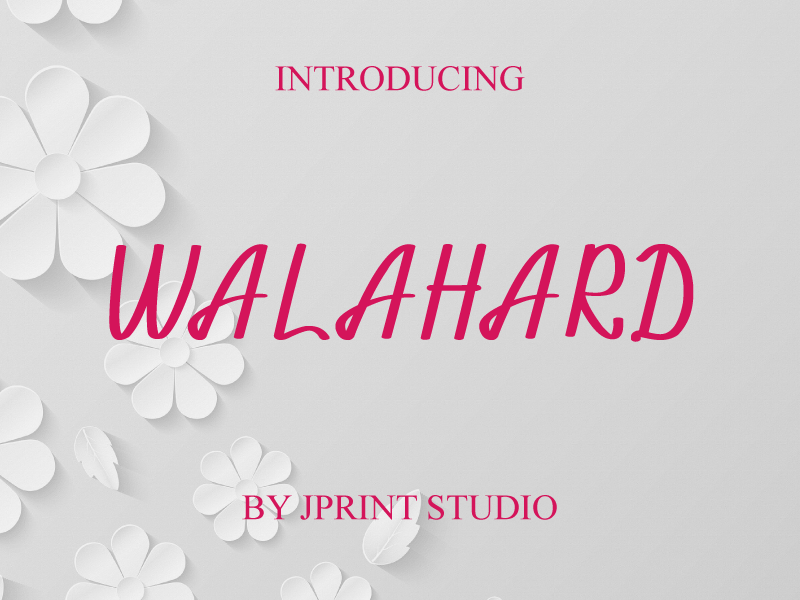
Preview and download Walahard Font. Created by Gais Zaelani in Script Handwritten styles with Free for personal use license.
Introducing Walahard, stylish handwriting with a modern style. This beautiful font offers your personal touch to your latest art project with an elegant, classy and modern look. Ready to use for projects, texts, letters, or whatever you want! NOTE: This demo font is for PERSONAL USE ONLY! But any donation are very appreciated. Paypal account donation: https://www.paypal.me/jprintstudio Link to purchase full version and commercial license :https://www.creativefabrica.com/product/walahard/ref/237608/ And follow my Dribble for Update : https://dribbble.com/GaisZ Thank you |